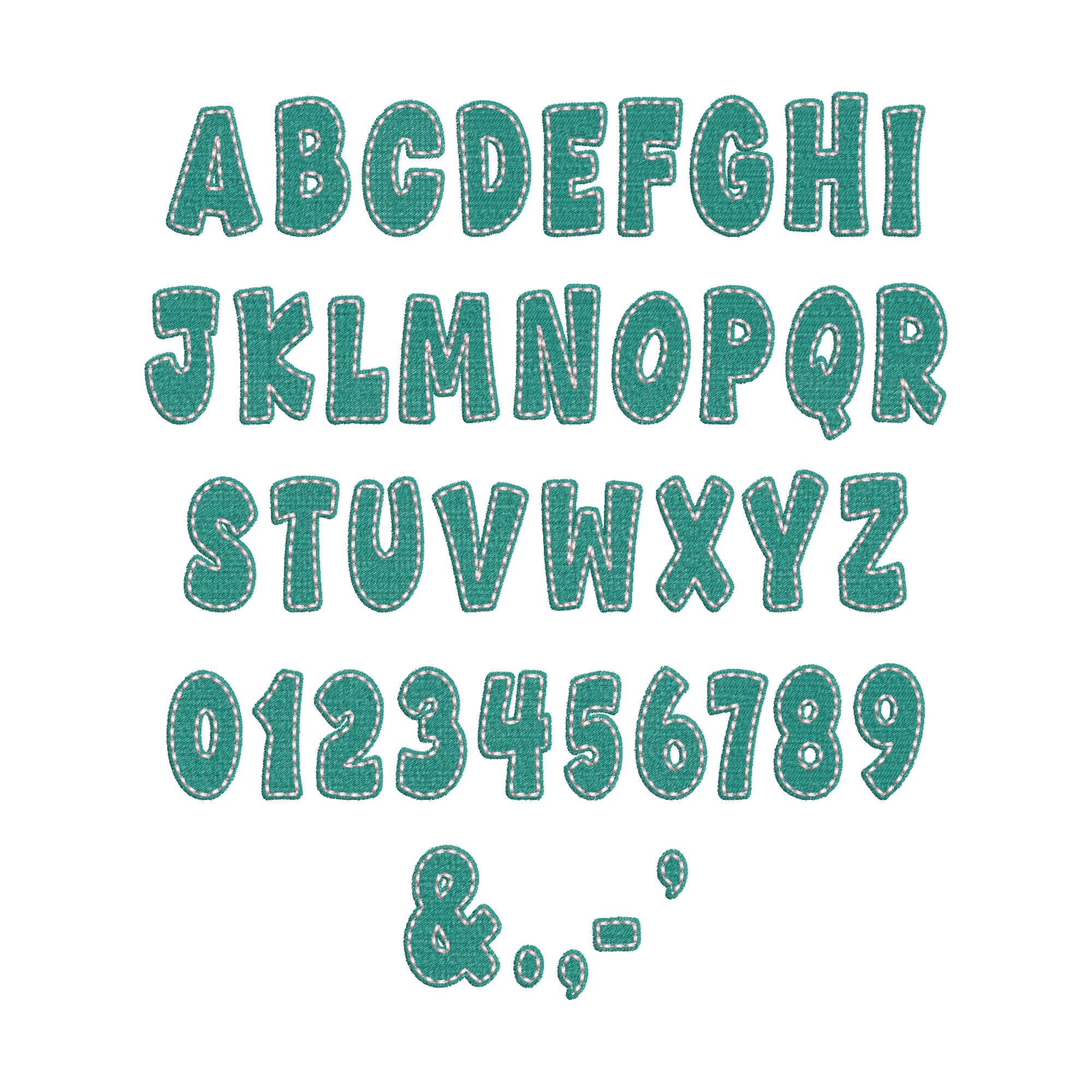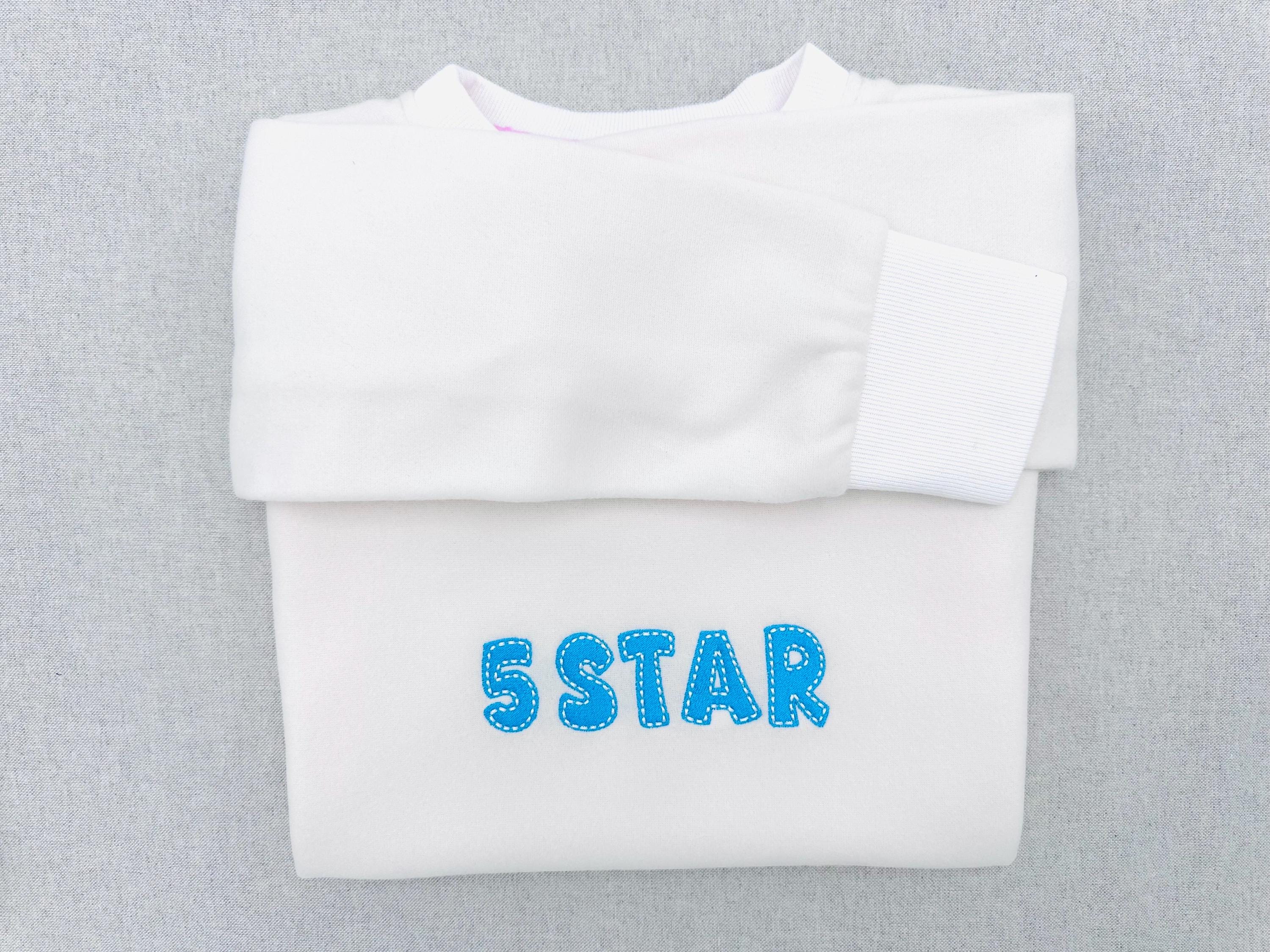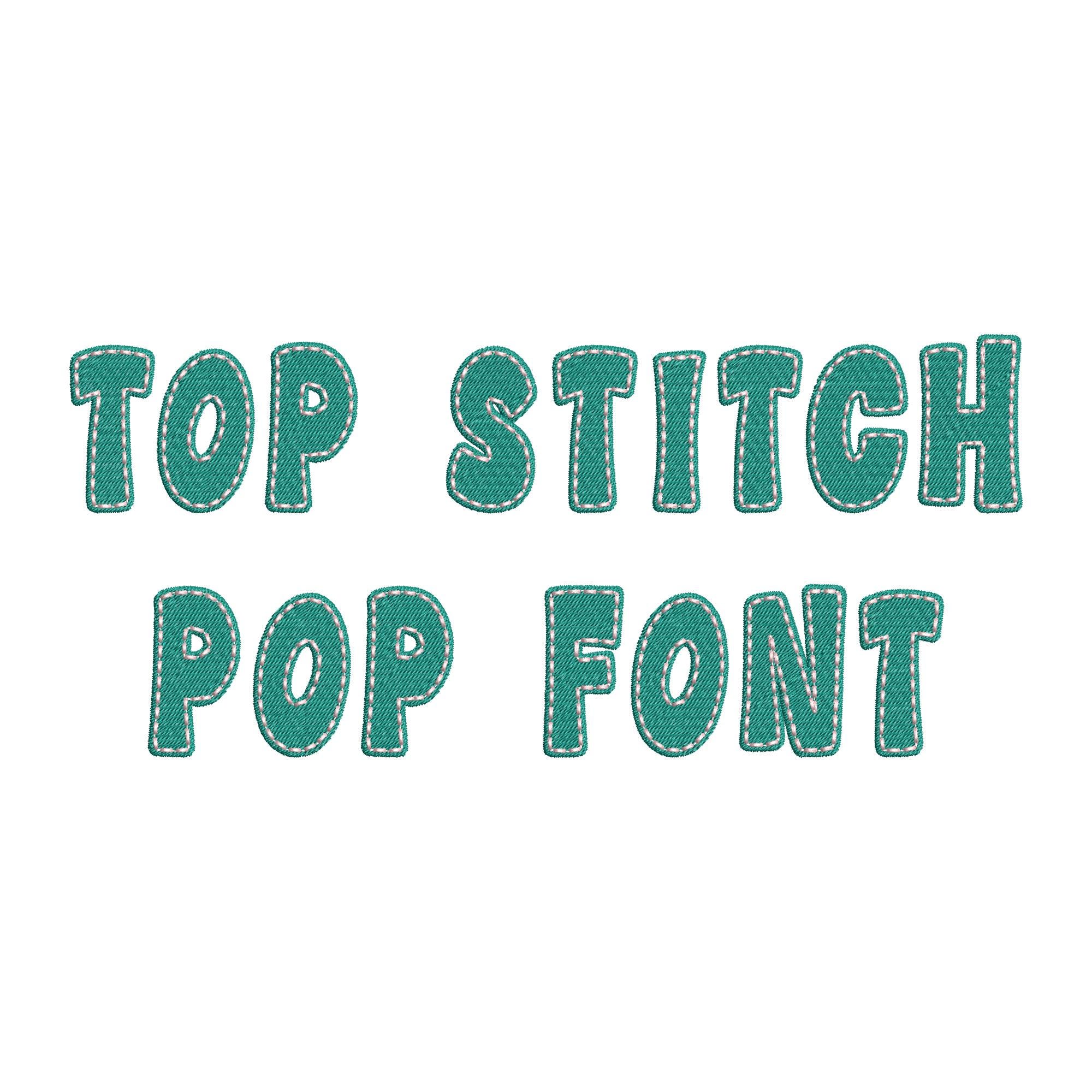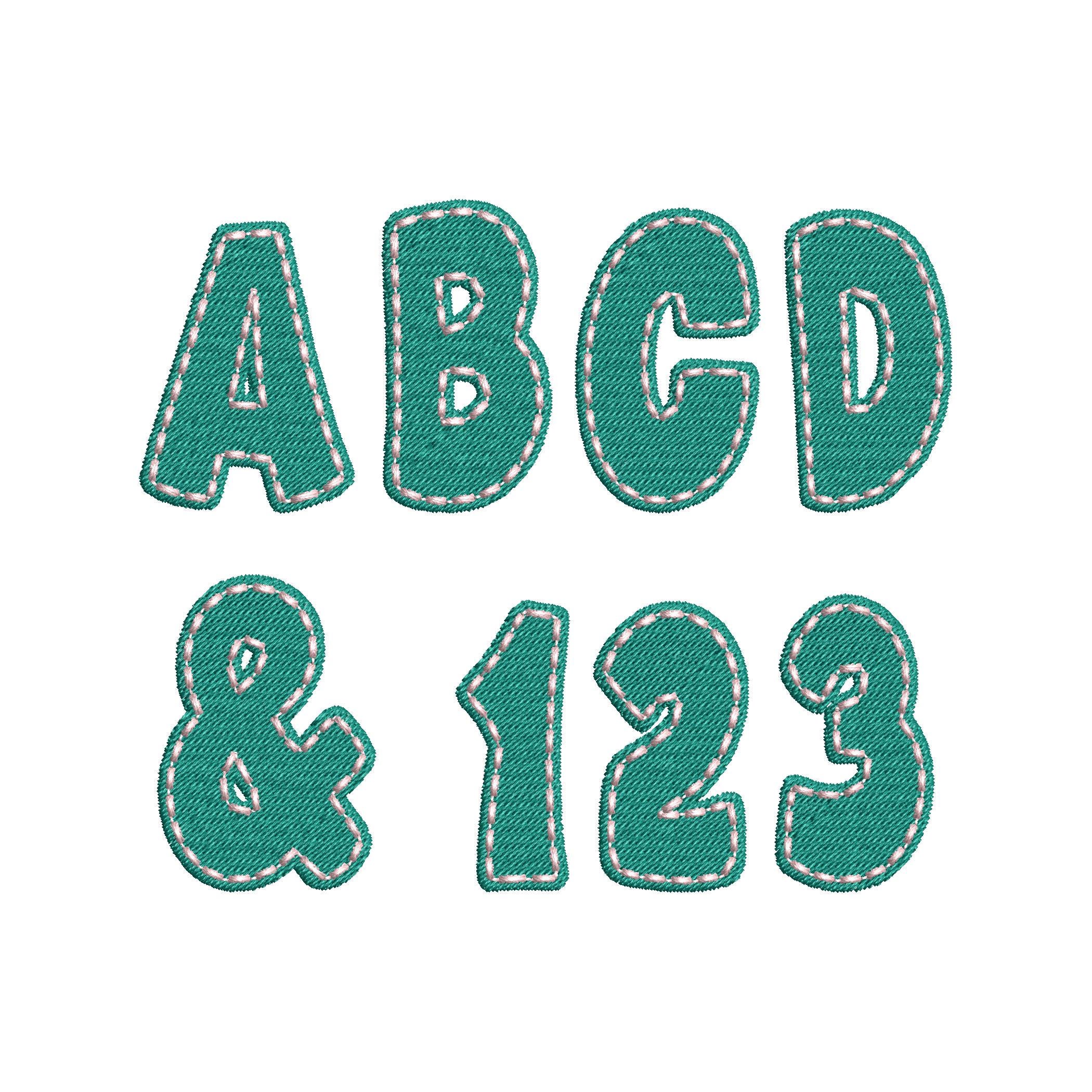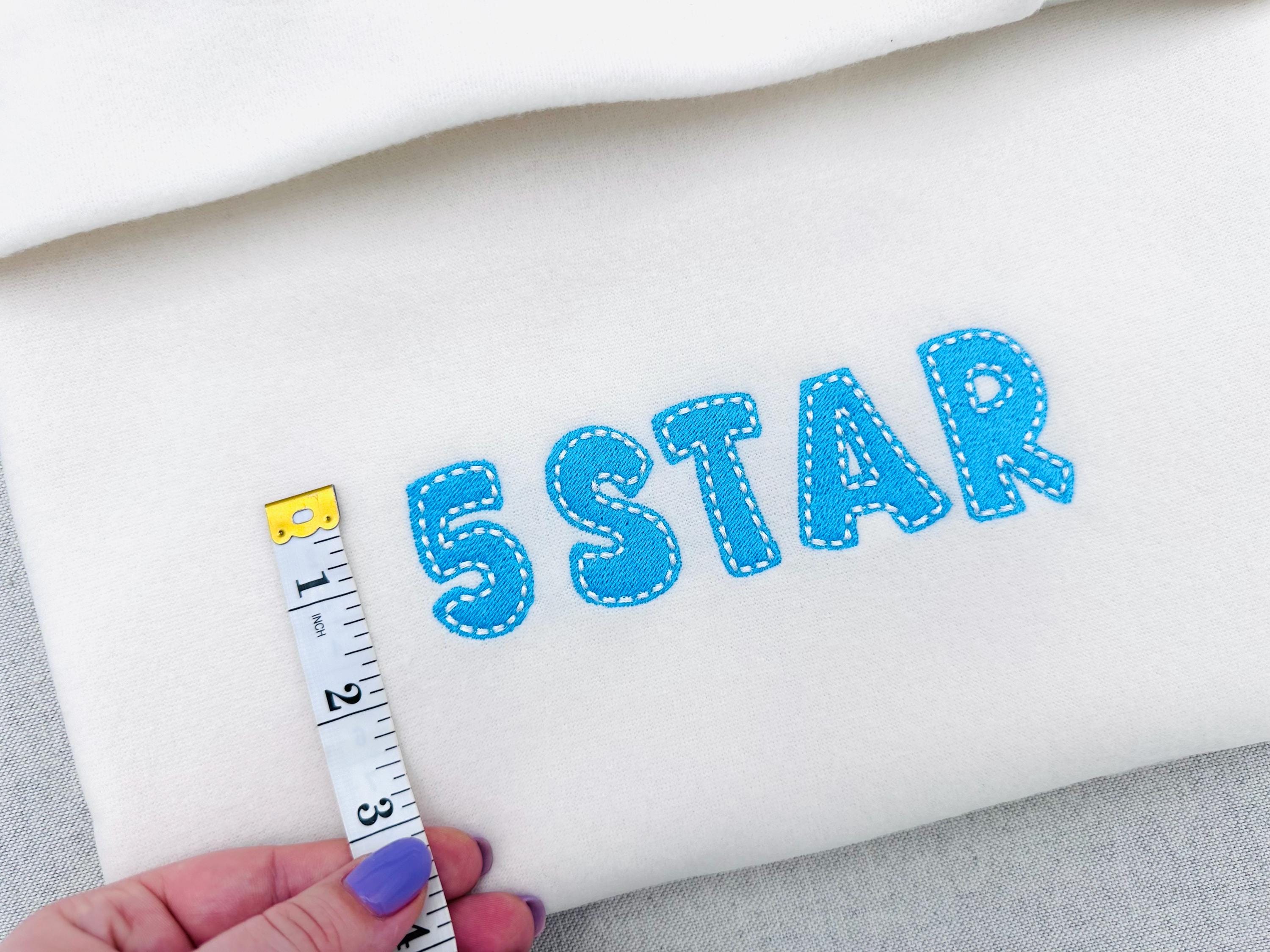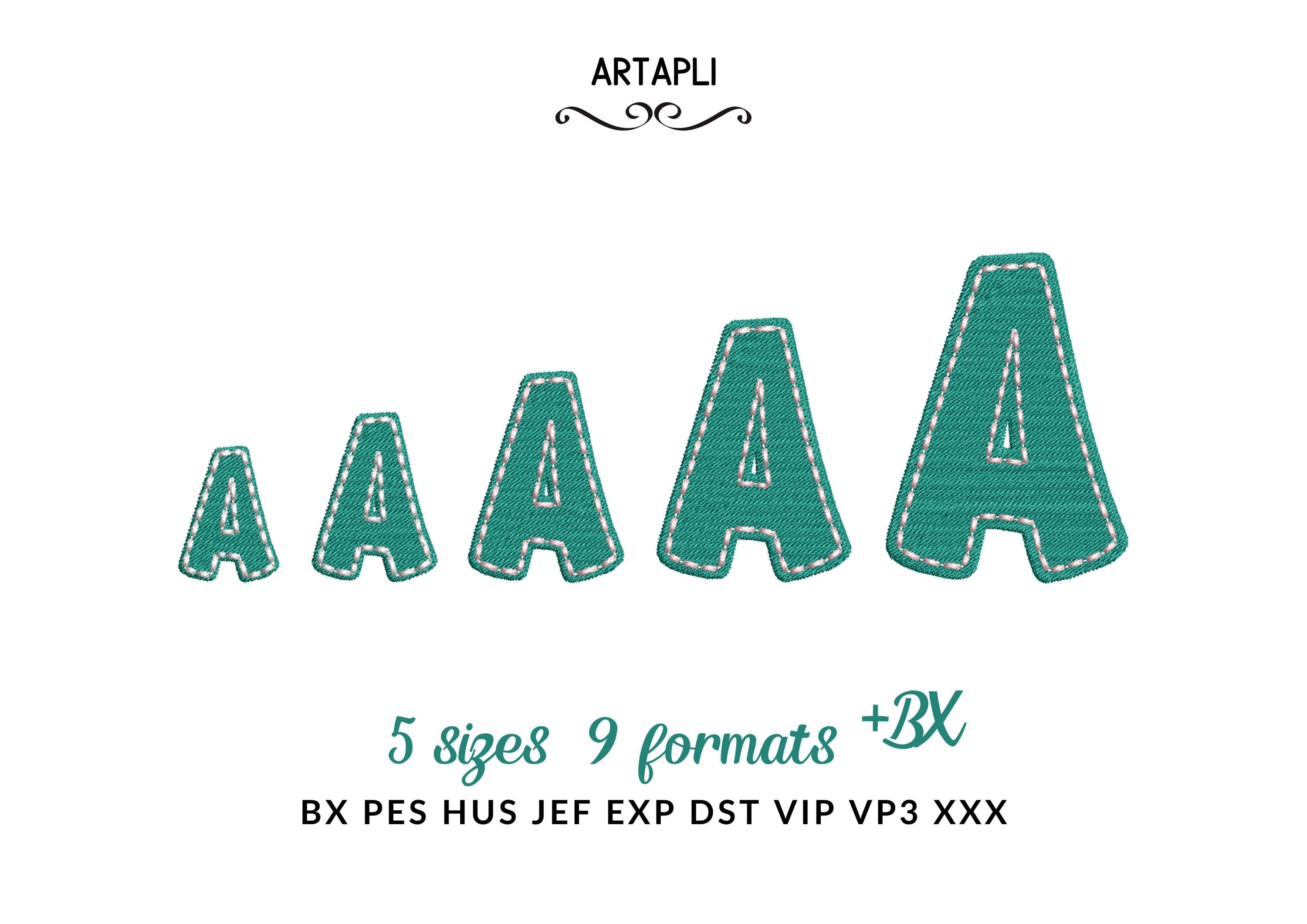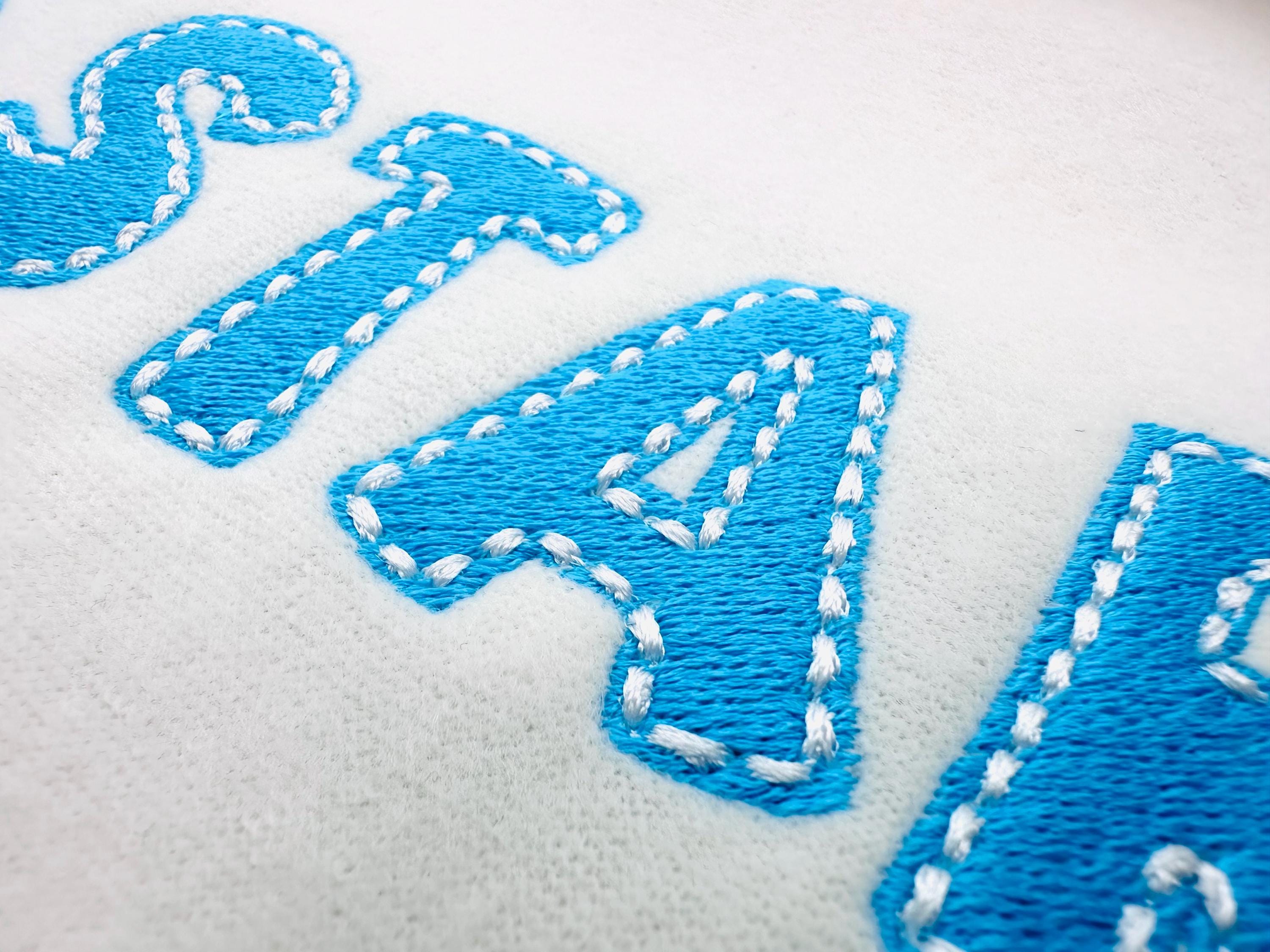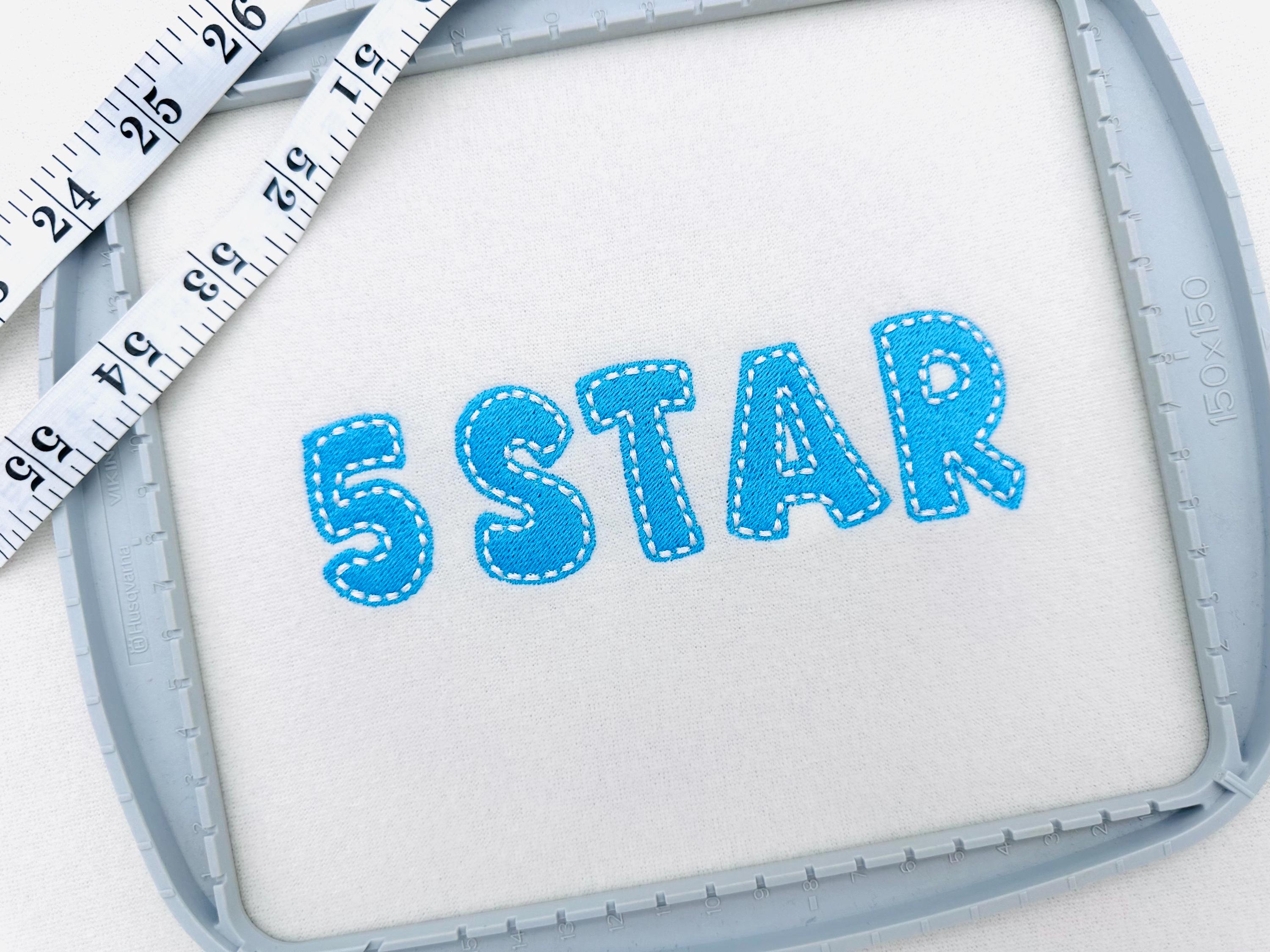
Fill stitch Pop FONT with hand-stitch look top machine embroidery designs kids fancy Alphabet Monogram sizes 1.2 to 3 inch, BX
Entire alphabet uppercase letters, numbers, and punctuation.